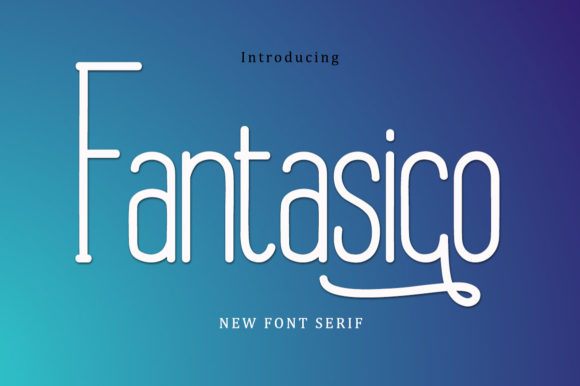
Fantasico Font
Welcome to the world of Fantasico, a captivating serif font that will transform your designs into masterpieces. With its graceful curves, elegant flourishes, and a touch of whimsy, Fantasico invites you to create captivating designs that speak from the heart.
Indulge in the beauty of Fantasico's tall and slender silhouette, adding an air of sophistication and charm to your creations. Its delicate lines dance across the page, evoking a sense of timeless elegance and femininity. Whether you're crafting personal invitations, enchanting branding materials, or designing heartwarming home décor, Fantasico is your perfect companion.
But what truly sets Fantasico apart is its versatility. Its PUA-encoded nature grants you effortless access to a treasure trove of glyphs and swashes, empowering you to unleash your creativity and add a touch of enchantment to every project.
Imagine your invitations adorned with Fantasico's graceful swashes, each word flowing seamlessly into the next like a delicate melody. Picture your branding materials exuding an air of timeless sophistication, with Fantasico's elegant curves adding a touch of understated luxury. Envision your home décor transformed into a whimsical wonderland, with Fantasico's delicate lines dancing across cushions, curtains, and walls.
With Fantasico, the possibilities are endless. It's more than just a font; it's an invitation to express yourself, to create designs that resonate with emotion and leave a lasting impression. So why wait? Embrace the magic of Fantasico today and let your creativity soar to new heights.